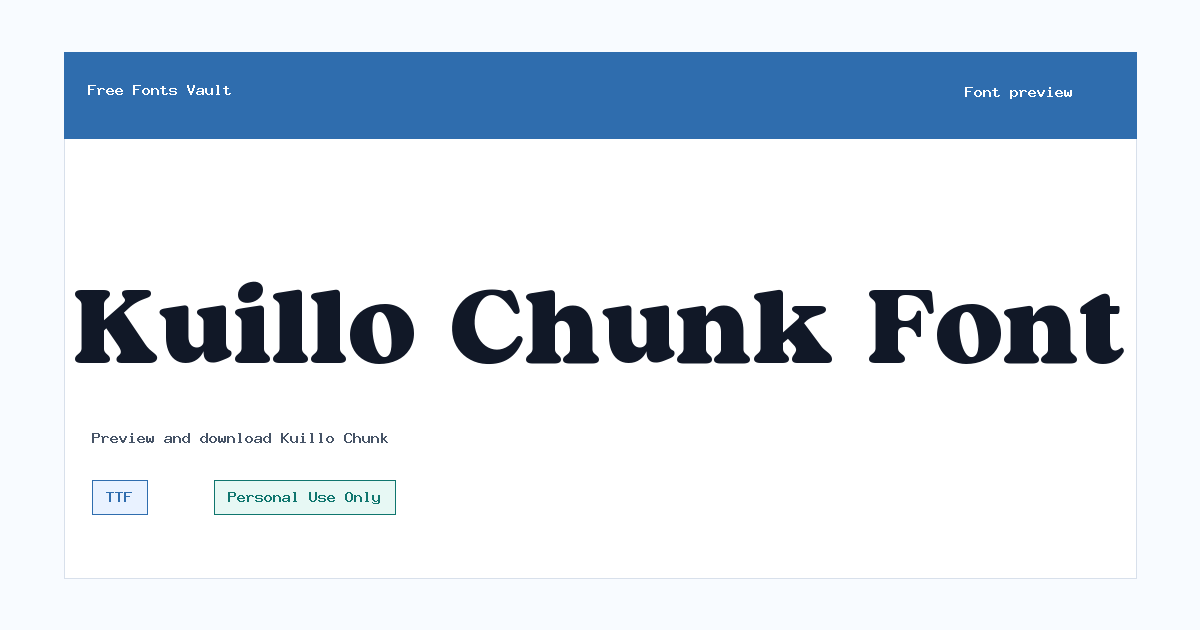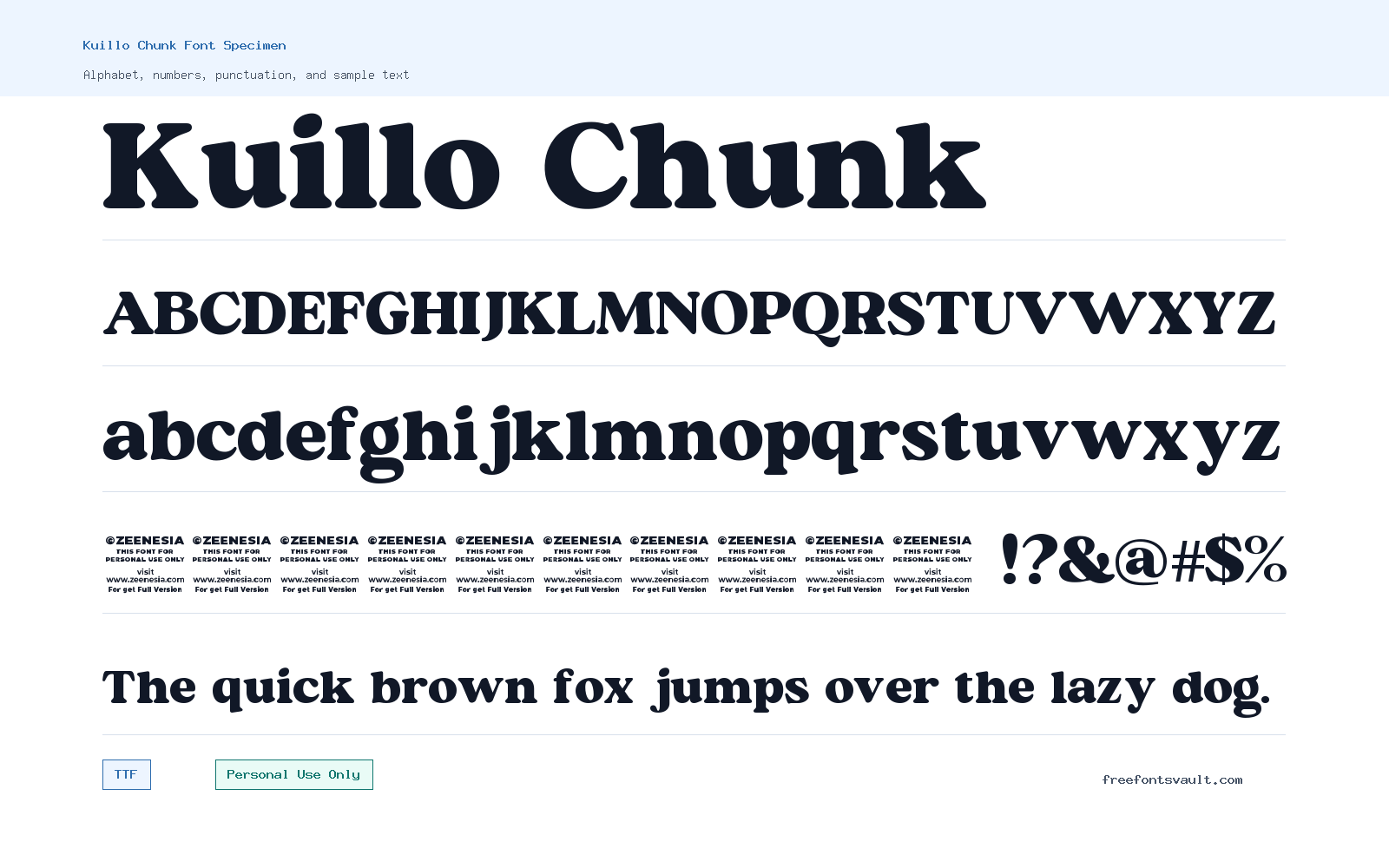
Kuillo Chunk
Kuillo Chunk font preview showing the family name
Kuillo Chunk Font
Kuillo Chunk font specimen showing alphabet, numbers, and sample text
Kuillo Chunk font.
About Kuillo Chunk
Kuillo Chunk works best when you treat it as a display serif rather than a long-reading text face. The name points toward a heavier, chunky personality, so it is a good candidate for short words, bold headings, poster lines, title graphics, packaging mockups, social posts, and other places where the font can be shown at a generous size. Because only a regular weight is listed, the font is easier to plan around when the design does not depend on a full family of weights or matching italics. Use the preview box to check how your exact wording looks, especially if your project uses tight spacing, all caps, or a mix of uppercase and lowercase letters.
For practical use, start by testing the words that matter most: a brand name, headline, event title, label, or quote. Look closely at spacing between letters, the shape of punctuation, and how numbers appear if your design needs dates or prices. A chunky serif can give short text a strong presence, but it may become harder to read in small captions, body copy, dense menus, or mobile layouts. Pair it with a simple sans serif or a quiet text serif so Kuillo Chunk can stay focused on the main display line. If the font feels too strong in a layout, increase surrounding white space rather than forcing it into smaller text.
• Personal-use serif display style that is best checked at headline, logo mockup, poster, and title sizes.
• Headlines, posters, title graphics, social media images, and short decorative text.
What is Kuillo Chunk best used for?
Use it for short display settings such as headlines, posters, title treatments, personal logo mockups, and social graphics. Test readability before using it at small sizes.